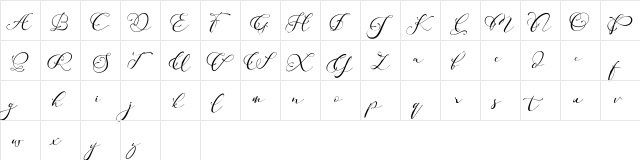
Adonessia Demo Regular
| Foundry | Allmostudio |
| Designer | Muhammad Nur Alamsyah |
Design Context for Adonessia Demo Typeface
Adonessia Demo is a composed and adaptable typeface that performs quietly and consistently across a wide range of design contexts.